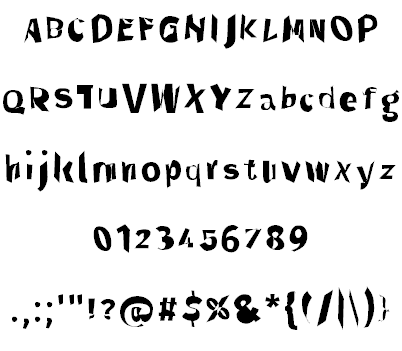
Free Through The Black Font
Introducing you to the absolutely beautiful free through the black font. Download this typeface from the original source of Font Space. Easily amaze your audience with this fancy font and make your graphic designs pop up from the crowd.